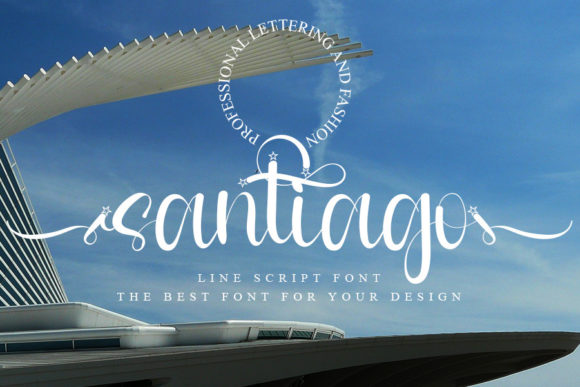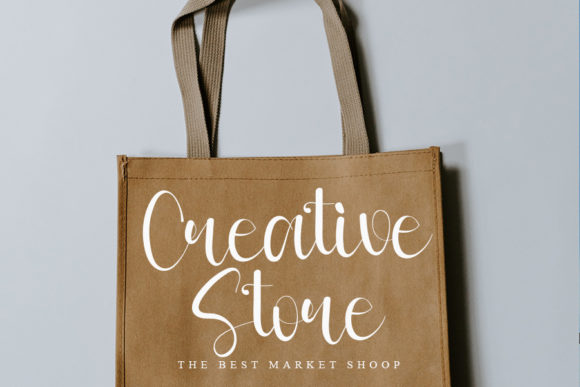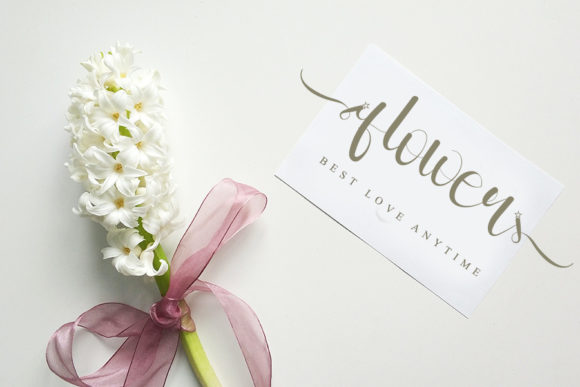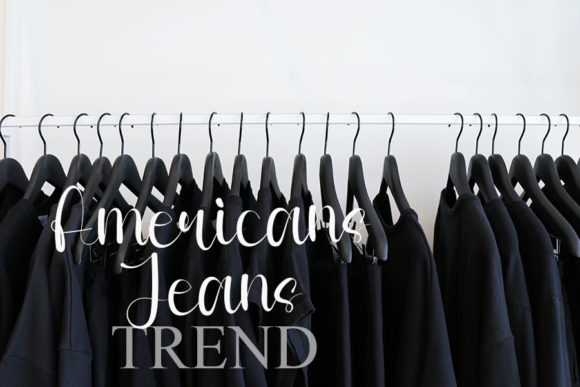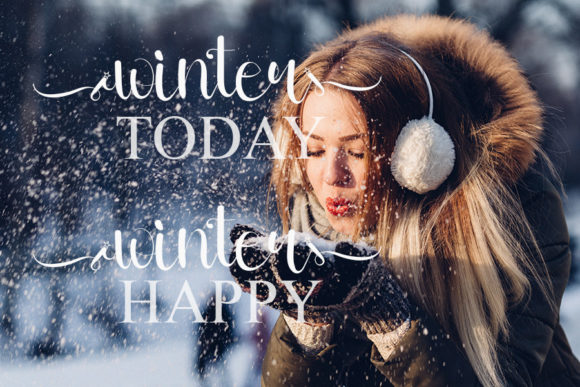
About Santiago Font
Santiago is a dainty and unique script font. Add this romantic and lovely looking font to each of your love letters, wedding invitations or favorite design ideas, and you will be astounded by the outcome. Santiago is PUA encoded which means you can access all of the glyphs and swashes with ease!